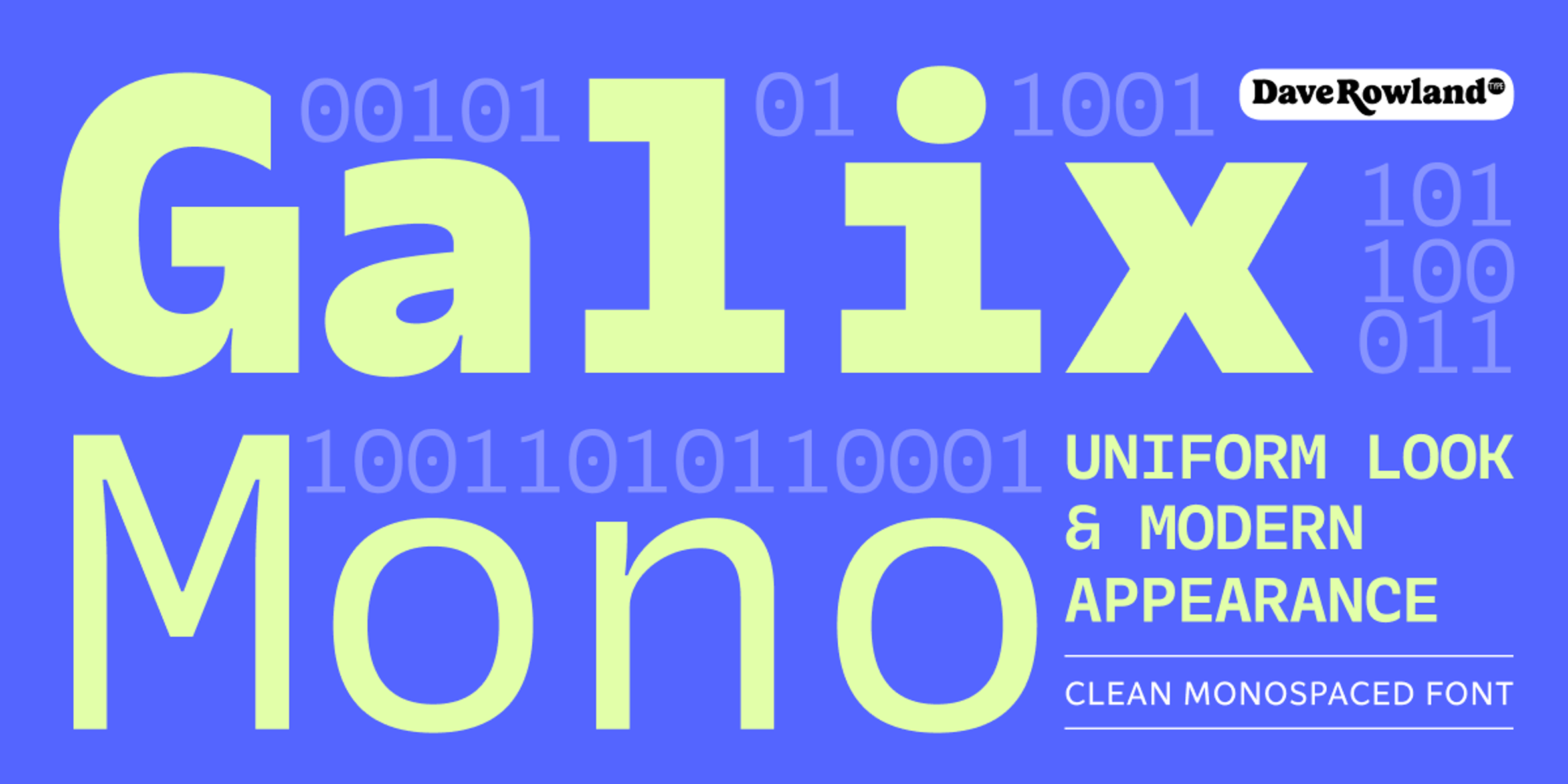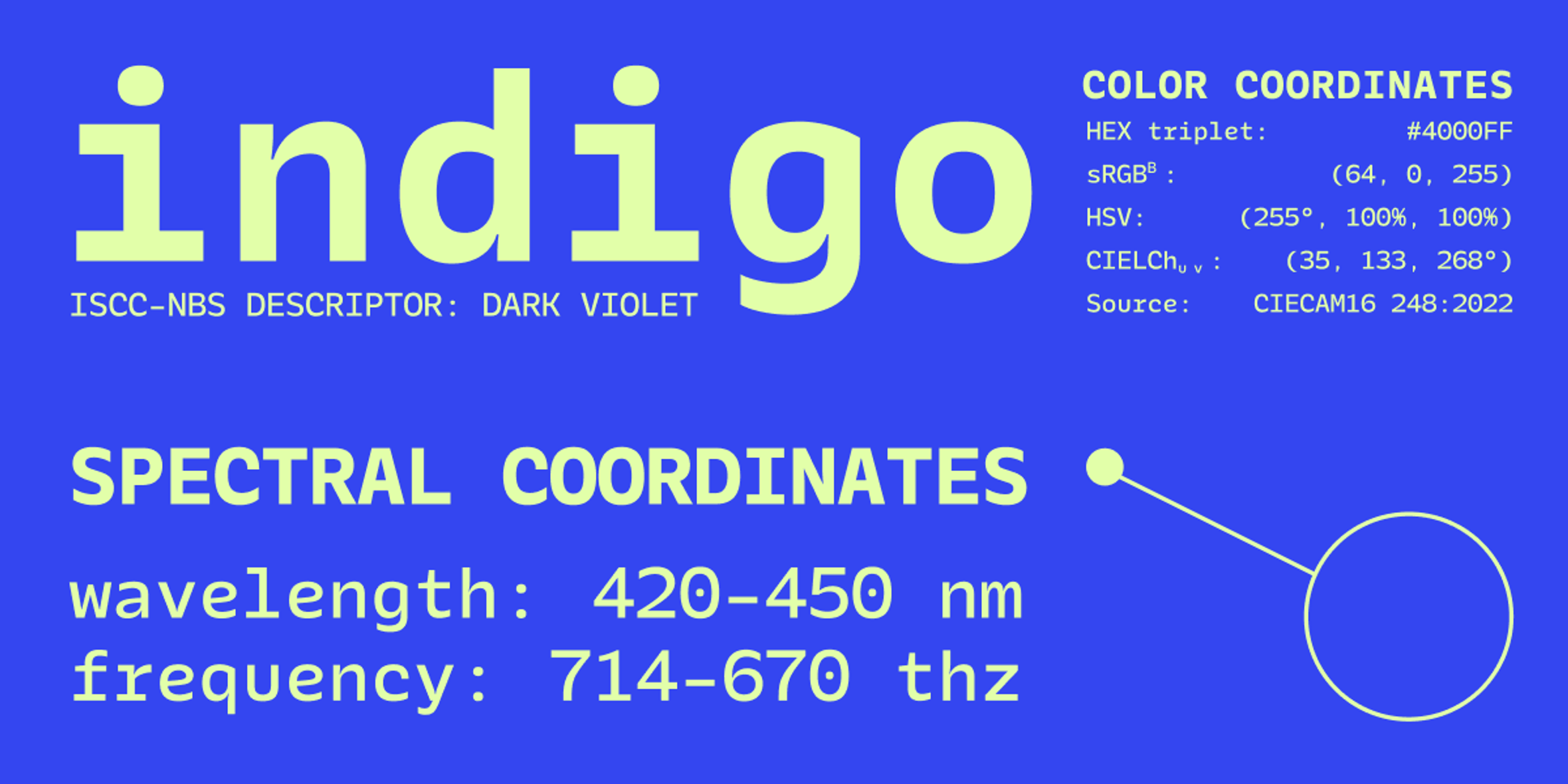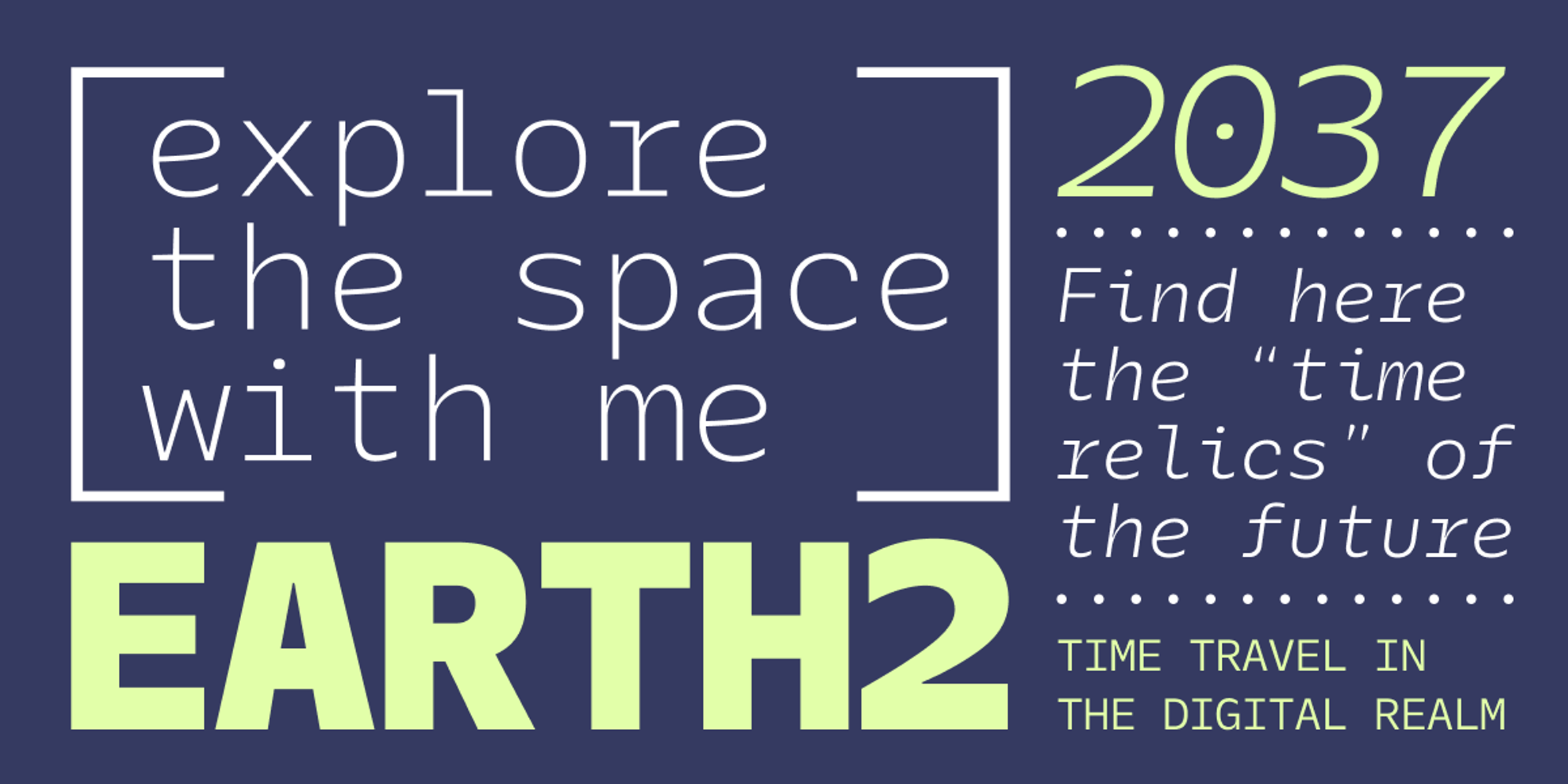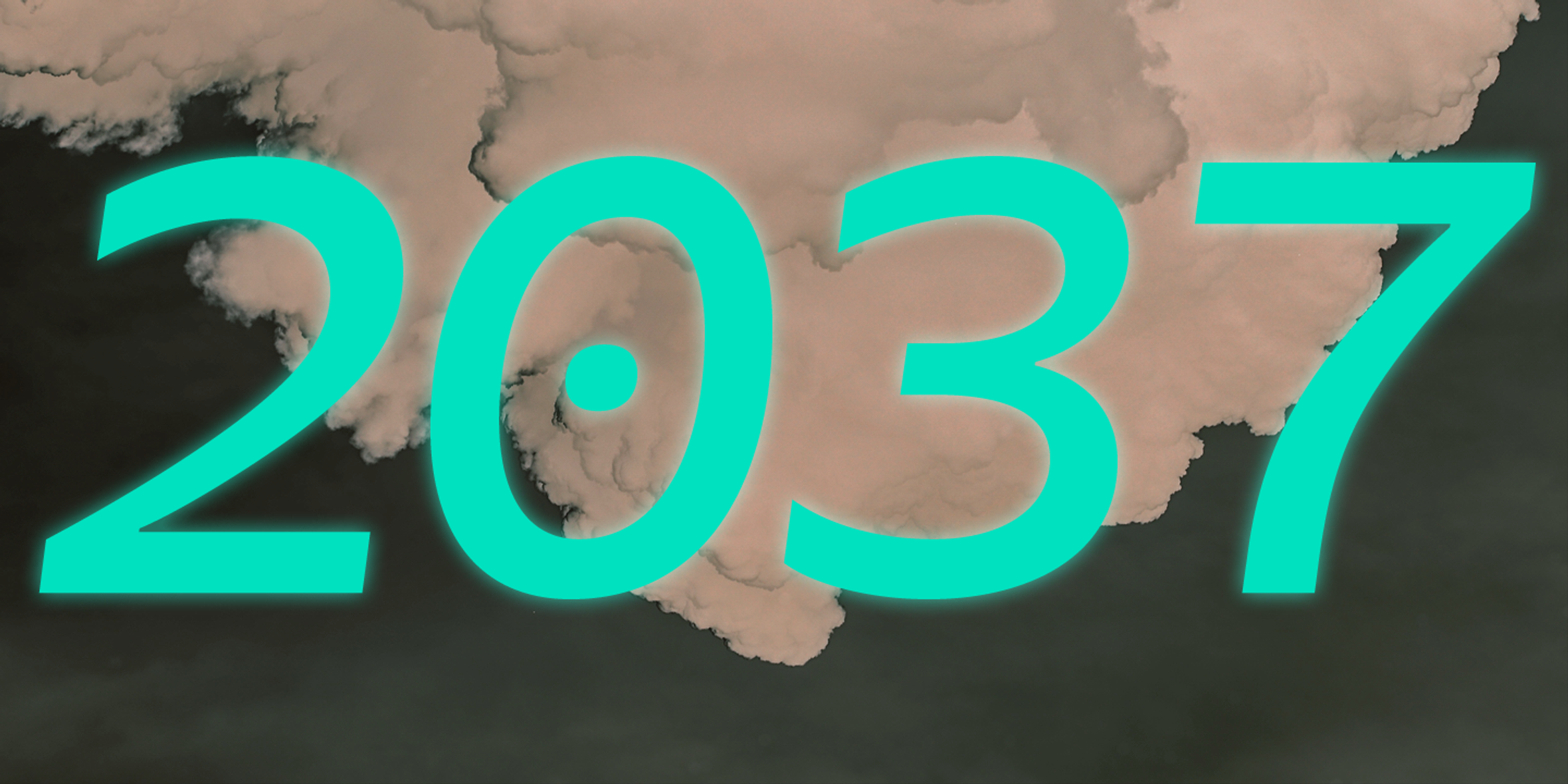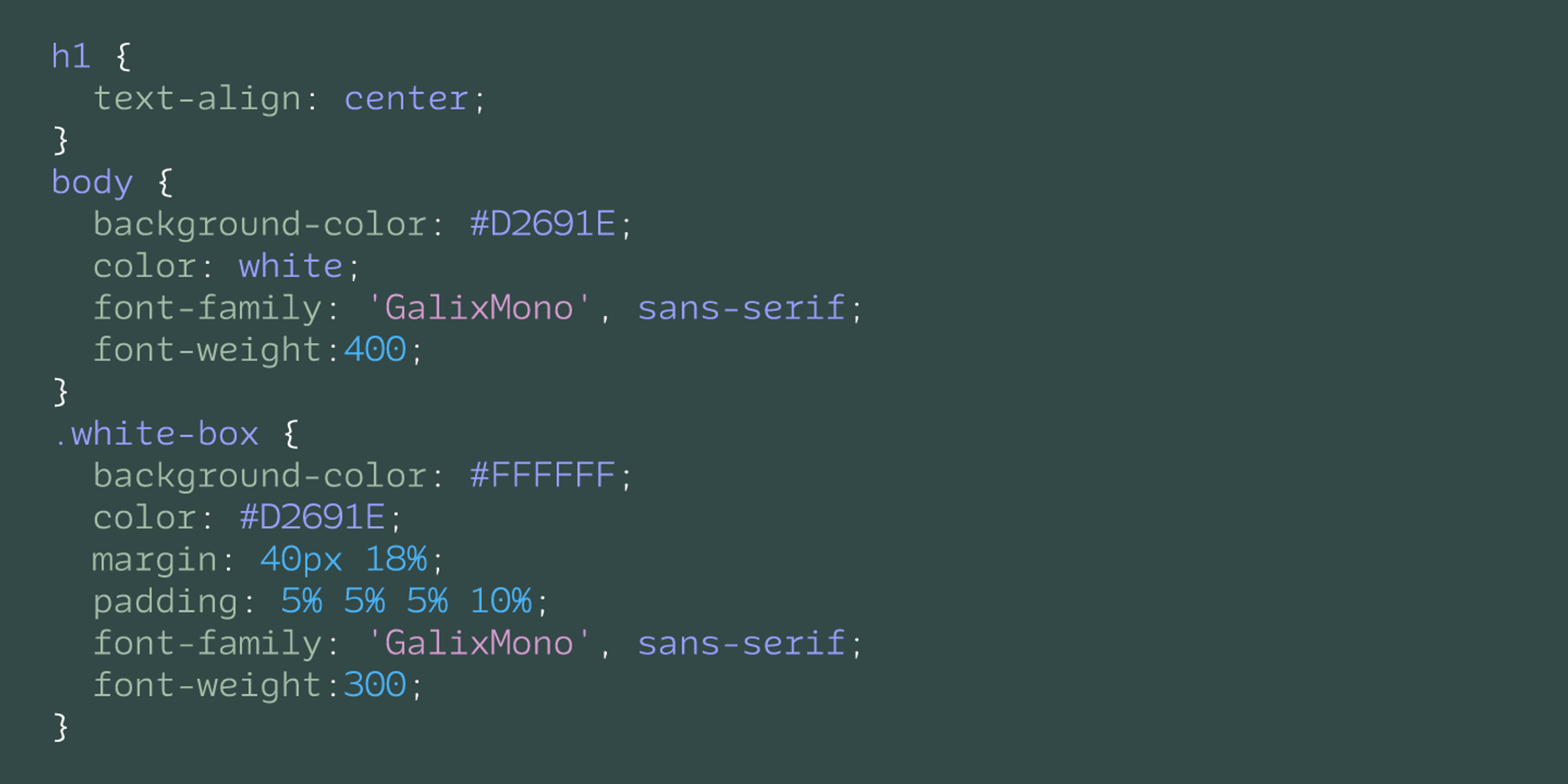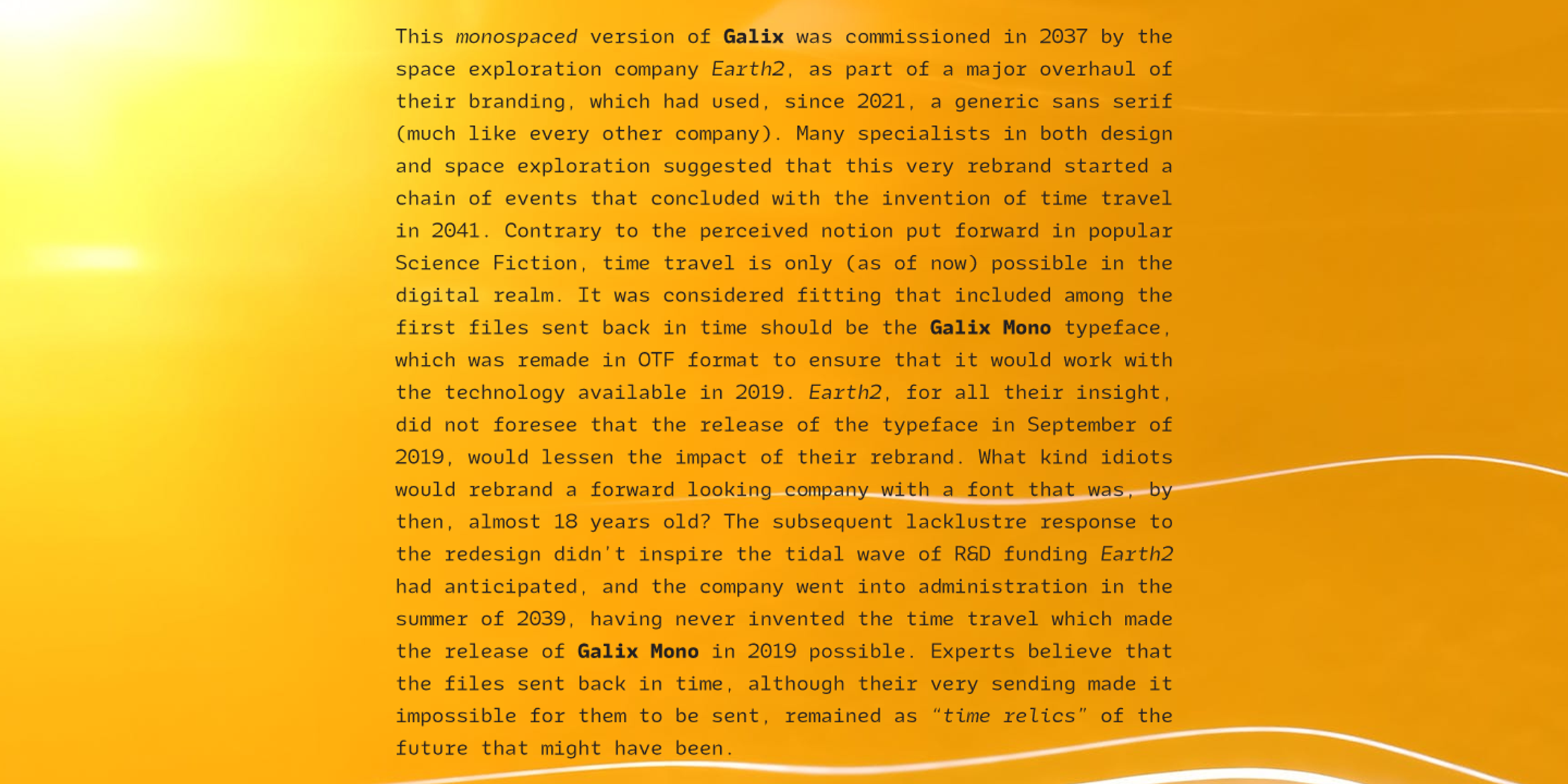
Galix Mono
Galix Mono is a monospace font patterned after Galix, a technical sans serif designed to look futuristic without any retro appearance. It has a squarish, slightly condensed anatomy characterized by thin joints and deep ink traps that add a sparkle to the otherwise monoline typeface. In the italics, these cuts are accentuated even more, which creates a sense of speed in the letterforms. Galix Mono is perfect for coding, apps, infographics, and other design situations that require structure.
- Ordinal Numerals